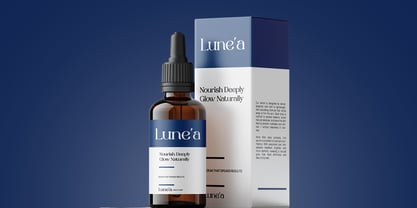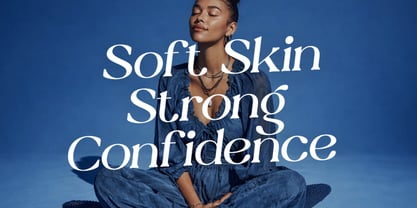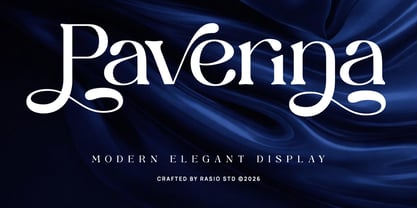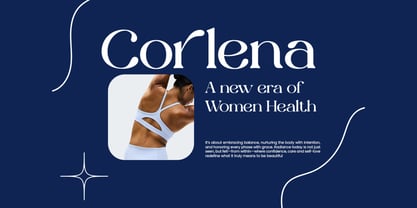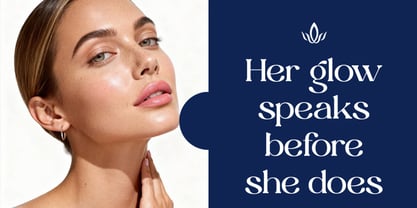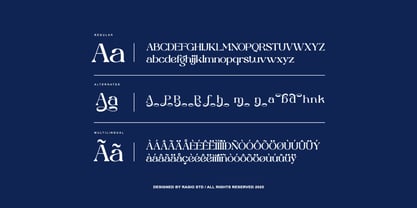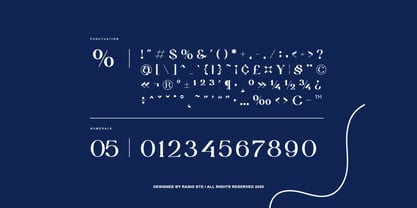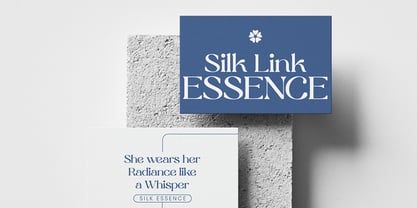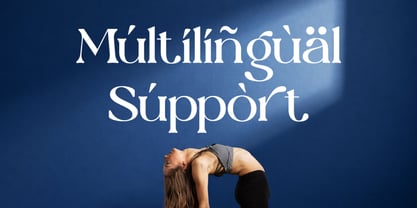
Paverina
by Rasio Studio
The Paverina Font Family was designed by Fajar Indra and published by Rasio Studio. Paverina contains 1 styles. More about this family
Paverina is a modern elegant serif font featuring refined curves, high-contrast strokes, and distinctive decorative alternates. The typeface includes uppercase, lowercase, numerals, punctuation, stylistic alternates, and multilingual support, allowing versatile typographic expression. This font is highly relevant for projects that emphasize elegance, beauty, and premium aesthetics. It works perfectly for fashion branding, cosmetic packaging, editorial layouts, luxury product design, and high-end marketing materials.
Designers: Fajar Indra
Foundry: Rasio Studio